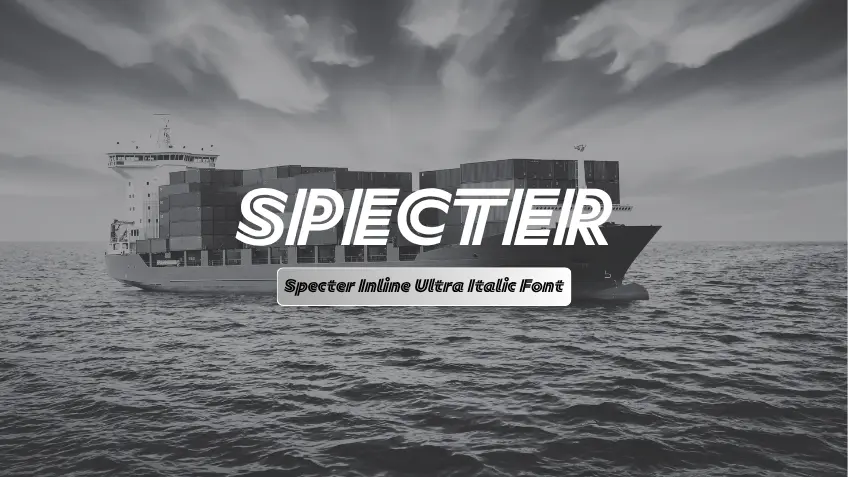
Specter Inline Ultra Italic
Specter Inline Ultra Italic Font
The font Specter Inline Ultra Italic, designed by Jeremy Mickel, falls under the Sans Serif category & Specter font family. Its smooth, flowing letterforms make it a versatile choice for projects that require both elegance and readability. Specter is particularly well-suited for Web Design, Editorial Design, Logos and Branding and Magazine and Editorial Layouts. With its balance of simplicity and decorative appeal, this font brings a polished touch to both personal and professional designs.